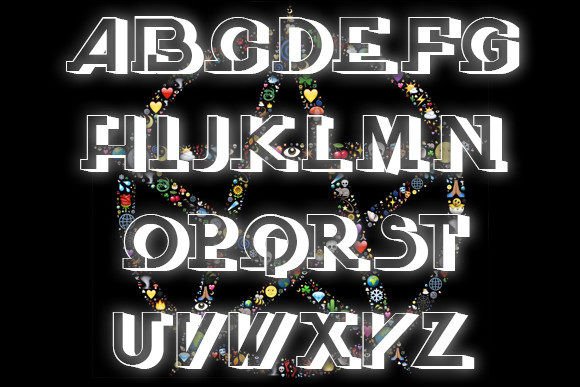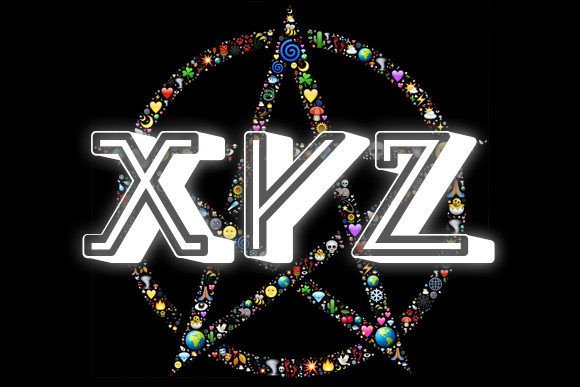
Atheist Font: Elevate Your Designs with a Stunning 3D Display Typeface
Are you tired of using the same old fonts in your designs? Look no further than Atheist Font, an awesome, abstract-looking 3D display typeface that’s perfect for modern projects that need dimensional text. In this article, we’ll dive into the features and benefits of Atheist Font, and explore how it can elevate your designs to the next level.
What is Atheist Font?
Atheist Font is a unique and eye-catching 3D display typeface that’s designed to add a touch of sophistication and modernity to your designs. Its abstract, geometric shapes and dimensional appearance make it perfect for a wide range of applications, from posters and flyers to advertisements and branding materials.
Key Features of Atheist Font
- Abstract 3D appearance: Atheist Font features a distinctive, abstract 3D appearance that’s sure to grab attention.
- Dimensional text: The font’s dimensional text effect adds depth and visual interest to your designs.
- Modern and sleek: Atheist Font has a modern and sleek aesthetic that’s perfect for contemporary designs.
- Highly versatile: The font can be used for a wide range of applications, from posters and flyers to advertisements and branding materials.
Benefits of Using Atheist Font
So why choose Atheist Font for your designs? Here are just a few benefits of using this amazing typeface:
- Adds visual interest: Atheist Font’s unique 3D appearance and dimensional text effect add visual interest and depth to your designs.
- Enhances brand identity: The font’s modern and sleek aesthetic can help to enhance your brand’s identity and make it stand out from the competition.
- Increases engagement: The font’s eye-catching appearance is sure to grab attention and increase engagement with your audience.
Who Can Benefit from Atheist Font?
Atheist Font is perfect for a wide range of designers and crafters, including:
- Graphic designers: Atheist Font is a great addition to any graphic designer’s toolkit, and can be used to create stunning posters, flyers, and advertisements.
- Branding experts: The font’s modern and sleek aesthetic makes it perfect for branding experts looking to create a unique and memorable brand identity.
- Digital artists: Atheist Font can be used to add a touch of sophistication and modernity to digital art projects.
- Crafters: The font’s bold and eye-catching appearance makes it perfect for crafters looking to create stunning handmade projects.